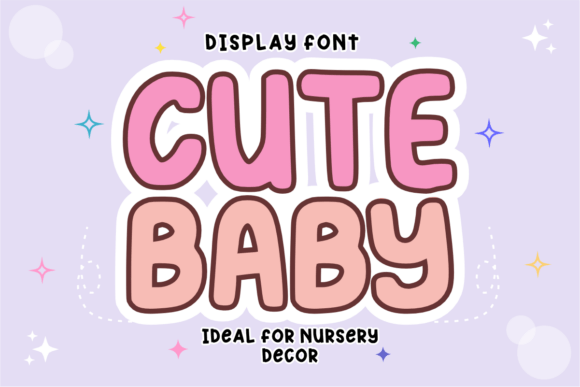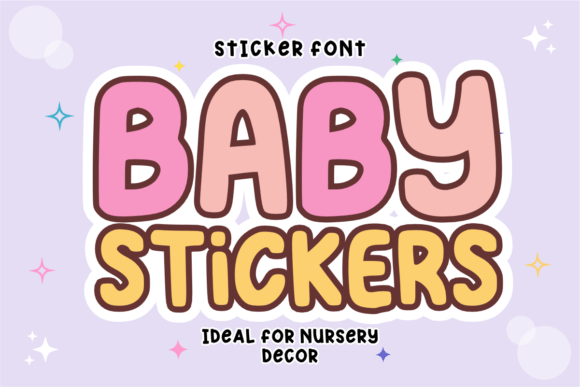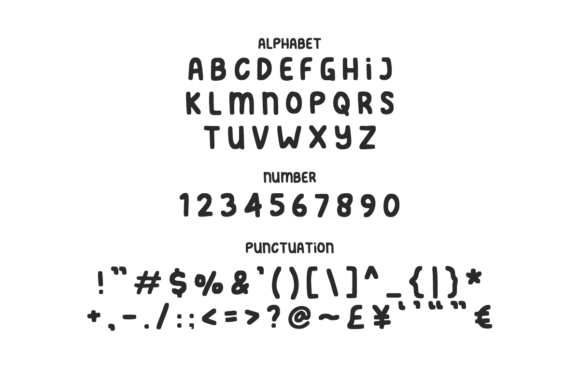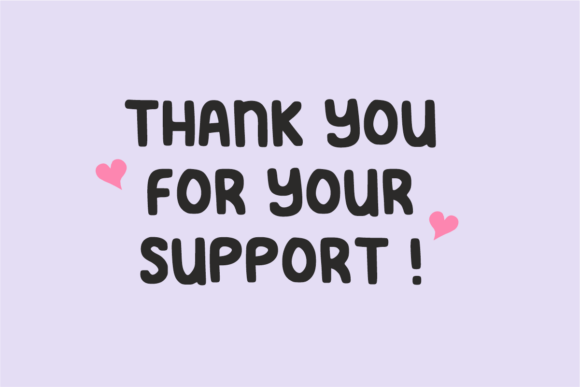
Bring Your Designs to Life with the Alphabet Doodle Font
Do you remember the thrill of creating a handmade card for a loved one or a birthday party invitation that wowed your friends? For many of us, the joy of crafting is rooted in childhood memories of playing with colorful markers and glue, bringing our imagination to life. Today, we’re excited to introduce a font that captures that same carefree spirit: the Alphabet Doodle Font!
This bubbly display font is designed to add a playful touch to any project, from kids’ book covers to nursery wall art. With its thick, rounded curves and hand-drawn feel, the Alphabet Doodle Font is the perfect choice for creators who want their designs to look friendly, approachable, and full of joy. Whether you’re a seasoned designer or a crafty enthusiast, this font is a must-have for anyone looking to add a little magic to their projects.
Alphabet Doodle Font Key Features
- Unique Characteristics: The Alphabet Doodle Font features a playful, hand-drawn design with intricate details and textures, making it perfect for adding a whimsical touch to designs.
- Character Set: The font includes a full set of uppercase and lowercase letters, numbers, and punctuation marks, making it a versatile choice for a wide range of design applications.
Alphabet Doodle Font Review
Overall, the Alphabet Doodle Font has a playful, whimsical feel that’s perfect for kids’ content or educational materials ✨. It’s a great choice for creating eye-catching titles or headings that grab the reader’s attention. The font’s hand-drawn style gives it a personal touch, making it feel more approachable and engaging.
One of the standout features of this font is its versatility. It comes in a range of weights and styles, making it easy to customize to fit your design needs ✨. The font also includes a variety of symbols and doodles that can add an extra layer of visual interest to your designs.
While the Alphabet Doodle Font is a great choice for many projects, it may not be the best fit for every design ✨. One of the main limitations is its lack of professionalism, which may make it less suitable for corporate or formal branding. Additionally, the font’s hand-drawn style can be a bit uneven in places, which may affect its overall readability.
Features
- Playful, whimsical feel perfect for kids’ content or educational materials
- Hand-drawn style gives it a personal touch
- Includes a range of weights and styles for customization
- Versatile and easy to use
- Lack of professionalism may make it less suitable for corporate or formal branding
- Hand-drawn style can be uneven in places, affecting readability
Tips for Getting the Most Out of Alphabet Doodle Font
Use the Alphabet Doodle Font to add a playful touch to your designs. Experiment with different font styles and colors to create a unique look.
Combine the Alphabet Doodle Font with other design elements, such as graphics and illustrations, to create a visually appealing design.
Use the Alphabet Doodle Font for:
Children’s party invitations
Wedding stationery
Brand logos and typography
Illustrated quotes and posters